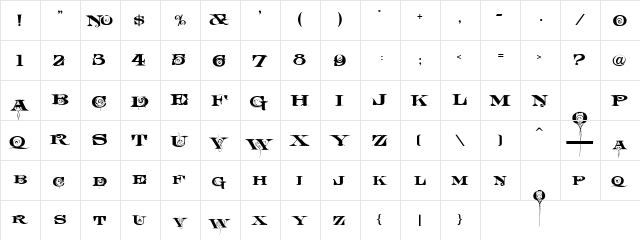
LHFFancyRomanATK Medium
Design Context for LHFFancyRomanATK Typeface
LHFFancyRomanATK is a composed and adaptable typeface that performs quietly and consistently across a wide range of design contexts.